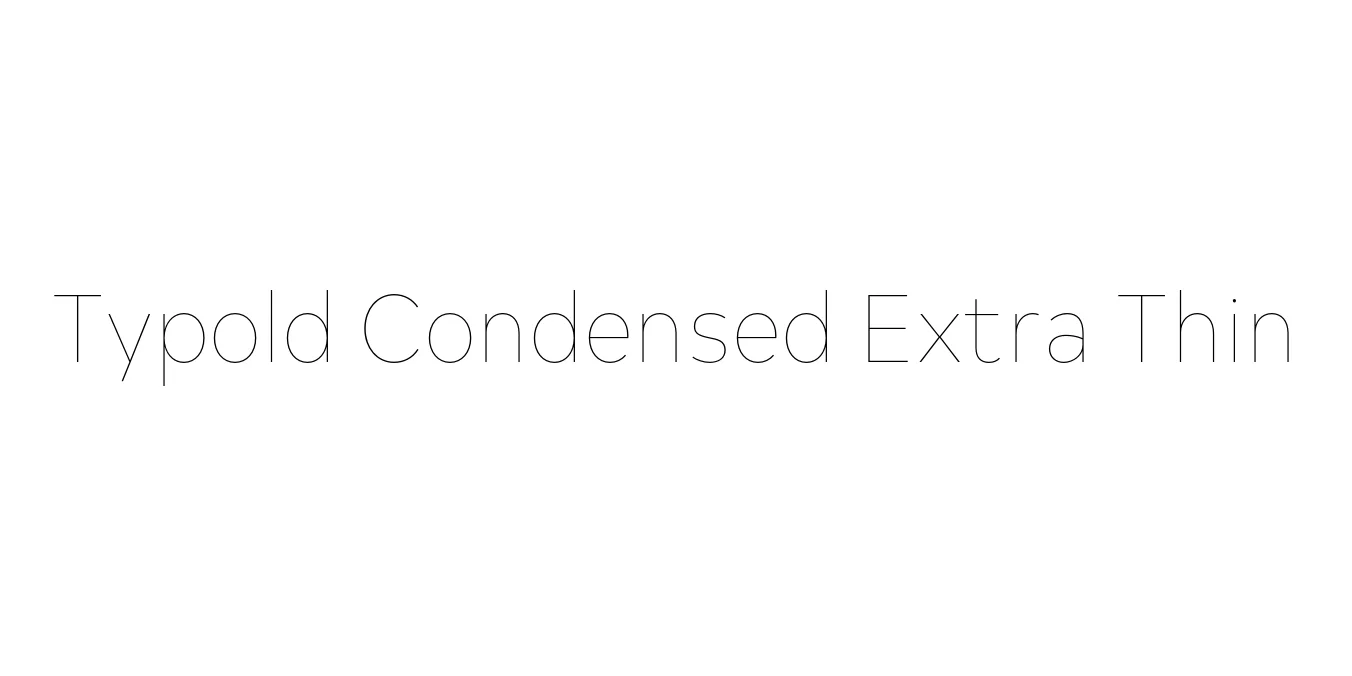
Typold Condensed Extra Thin
Designed by Jonathan Hill
Typold Condensed Extra Thin is a meticulously engineered geometric sans-serif typeface designed by Jonathan Hill and released through The Northern Block. This font is part of the broader Typold system, which was developed to bridge the gap between traditional modernism and contemporary digital clarity. The Condensed Extra Thin weight, specifically, showcases an architectural precision, offering a slender and sophisticated profile that maintains legibility through perfectly balanced open counters and a consistent x-height.
Characterized by its minimalist aesthetic and refined stroke widths, this typeface is an ideal choice for high-end design projects requiring a sense of elegance and technical proficiency. The geometric roots of the design ensure a rhythmic flow, while the condensed proportions allow for efficient space management without sacrificing the font's high-resolution sharpness. It represents a modern take on the industrial sans-serif, optimized for both screen and print environments where subtlety and detail are paramount.
Typold Condensed Extra Thin Best Uses
Perfect for high-fashion magazine headers and elegant body copy pull-quotes.
Ideally suited for luxury brand logos that require a precise, thin, and sophisticated look.
Excellent for modern website hero text and mobile app titles that prioritize a clean aesthetic.
Used in environmental graphics where technical precision and a narrow footprint are needed.